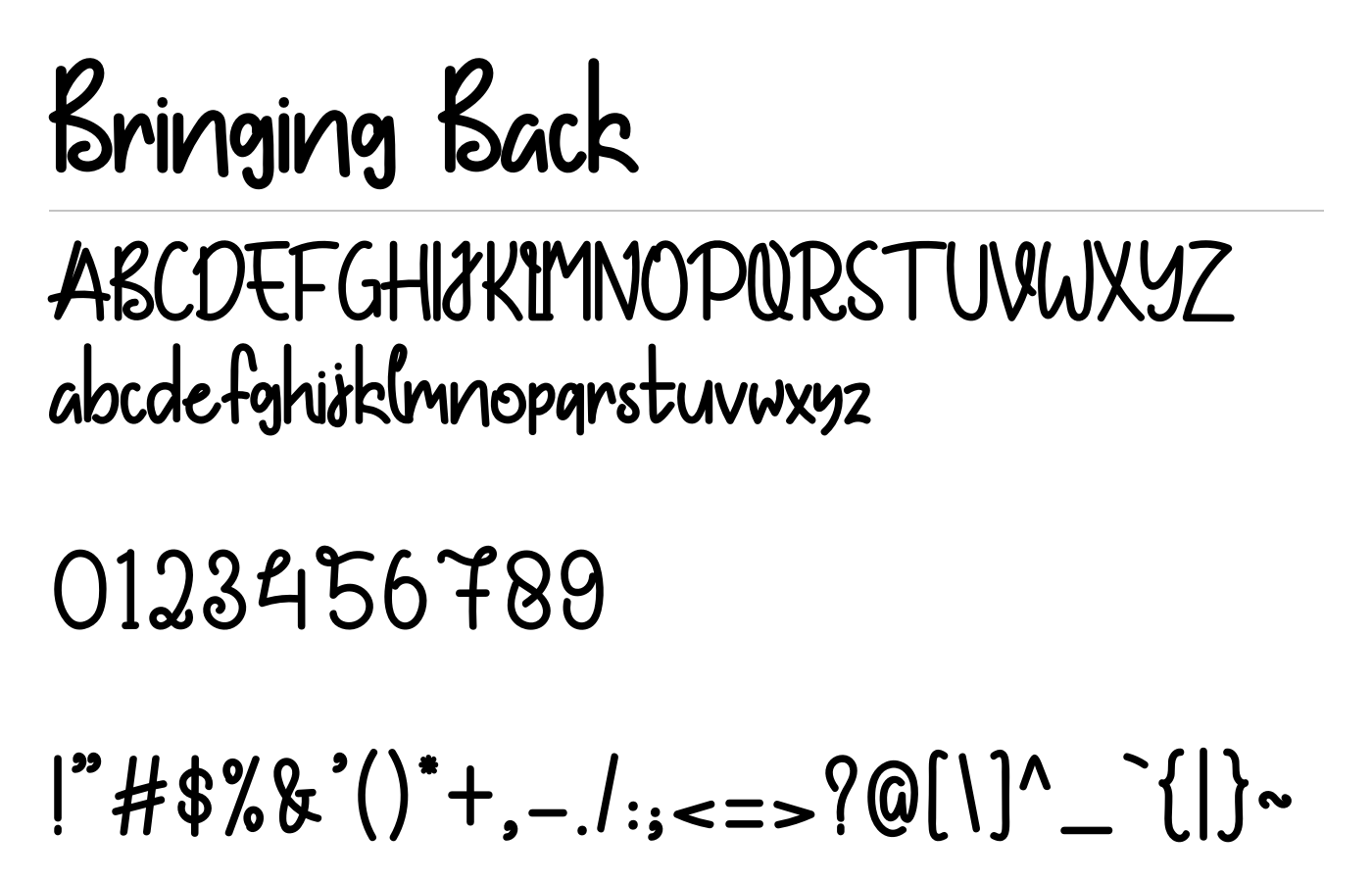
Bringing Back is a playful, handwritten sans serif font with a casual and friendly vibe. Its rounded strokes and quirky letterforms create an approachable, informal feel perfect for creative projects, children’s materials, and personal branding. This font works well in headlines, logos, and fun, lighthearted designs where personality and warmth are key.
Bringing Back Font
About Bringing Back Font